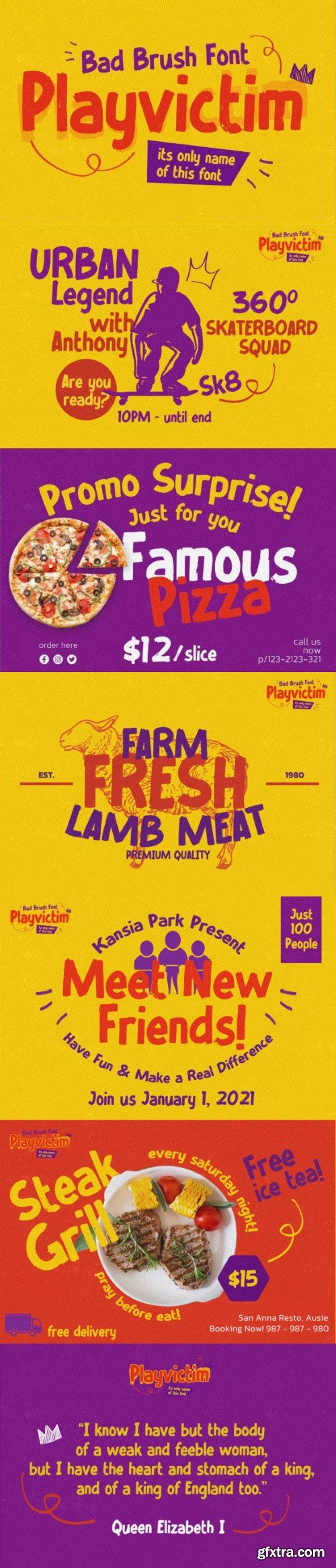
PLAYVICTIM Font
Playvictim is a cool and brushed display font. Whether you’re using it for crafts, digital design, presentations, or making greeting cards, this font has the potential to become your favorite go-to font, no matter the occasion!